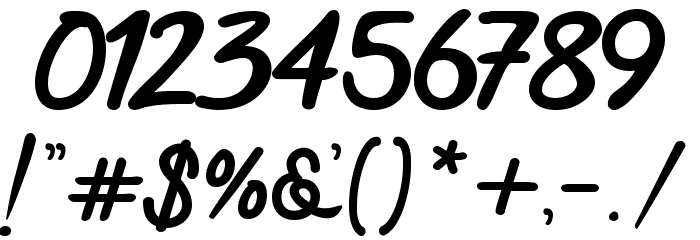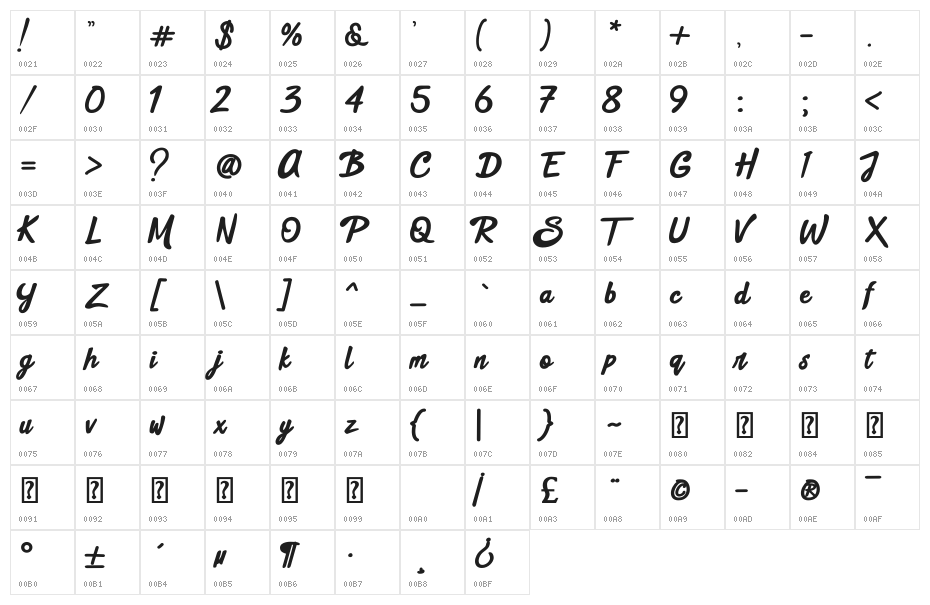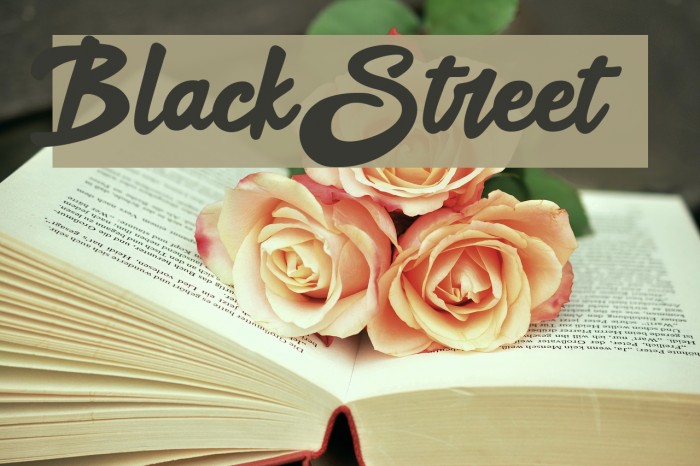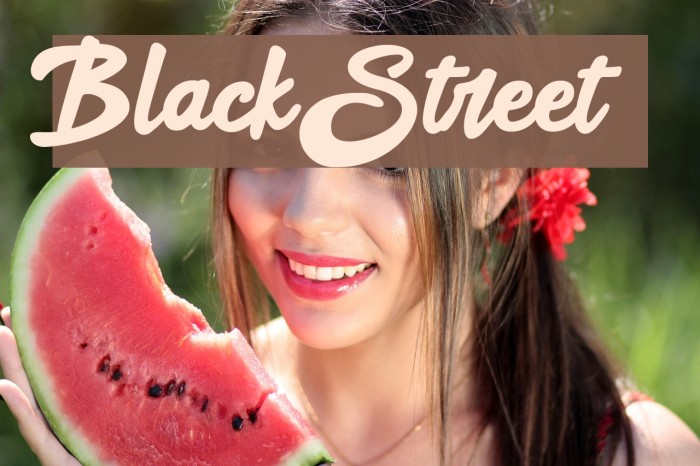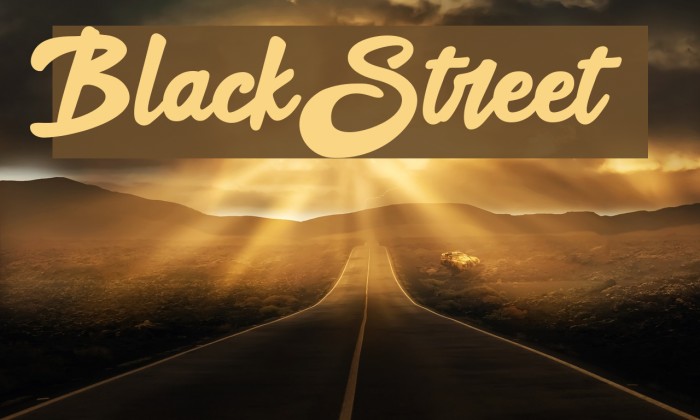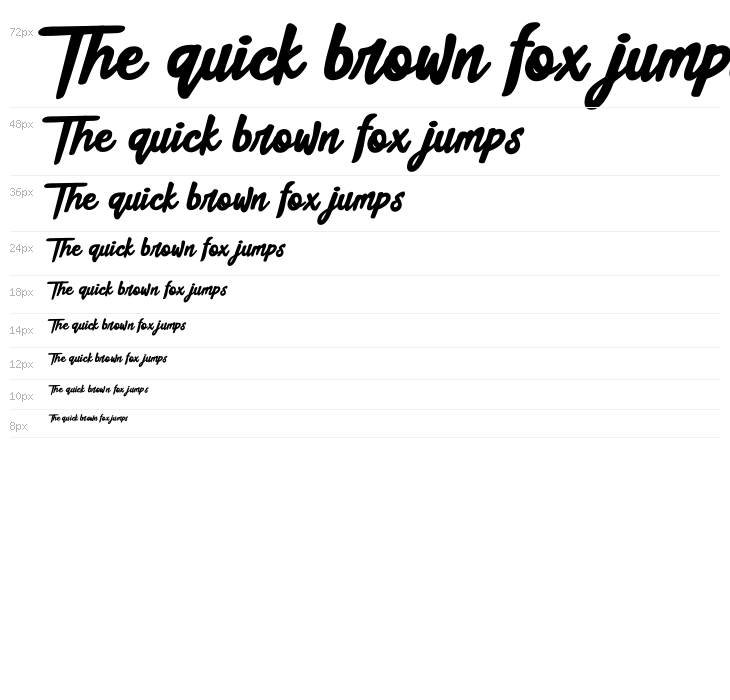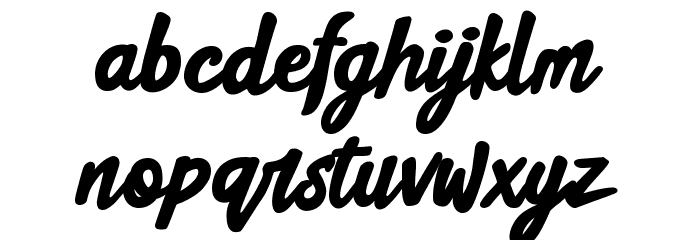
Black Street Font
Black Street Description
This font features a bold and dynamic script style, characterized by its fluid and connected letterforms. The uppercase letters exhibit a strong presence with their sweeping curves and pronounced slants, while the lowercase letters maintain a cohesive flow that enhances readability. The numerals are equally bold, ensuring they stand out in any design. Special characters are crafted with the same attention to detail, providing a complete and versatile typeface. The overall aesthetic is energetic and modern, making it suitable for a variety of creative applications.
Proposed ProjectsIdeal for branding, logo design, posters, and social media graphics.